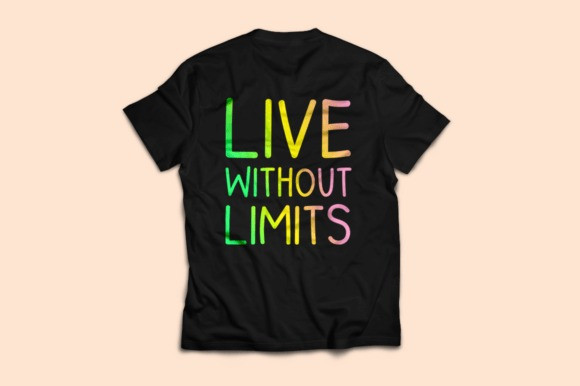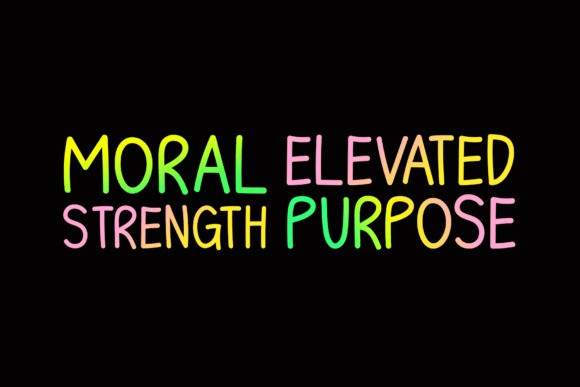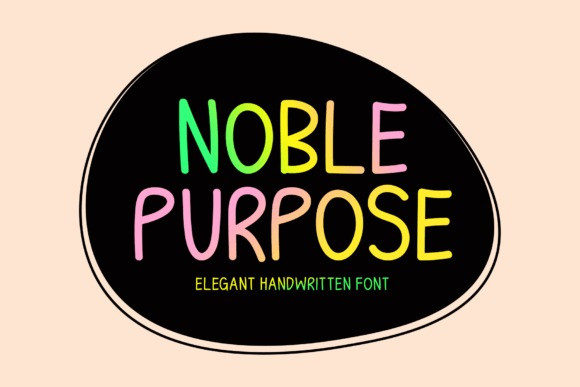
Noble Purpose Font
Noble Purpose Font a lean and tall Elegant Handwritten Font that balances casual charm with a sophisticated edge.
This typeface features thin, monolinear strokes and an elongated structure that gives your text a modern, “hand-crafted” look without the clutter of a script. The Noble Purpose font is an essential tool for creators seeking a “clean-hand” aesthetic, serving as a gorgeous font for lifestyle blogs, wellness branding, and modern editorial design.
The airy and upright nature of the Noble Purpose typeface ensures excellent legibility while maintaining a unique personality. It is a fantastic font for quotes, social media overlays, and personalized stationery where a human touch is required.
To enhance the Noble Purpose font, pair it with a minimalist sans-serif for body text and use vibrant, high-contrast colors to let the slender letterforms pop. Whether you are designing a modern cookbook, a wellness journal, or a custom sign-off for a professional newsletter, this font adds a touch of authenticity and refined grace to your work.